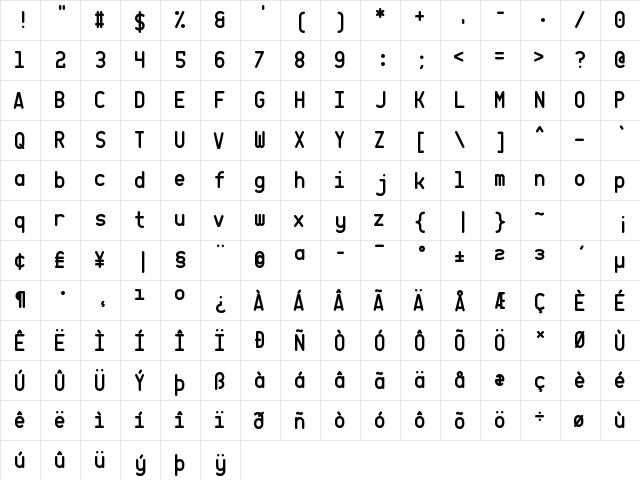
CQ Mono Regular
| Designer | AM |
Design Context for CQ Mono Typeface
CQ Mono uses fixed-width spacing throughout, giving it the structured, systematic character associated with coding environments and technical documentation.
A natural fit for code editors, technical documentation, developer-focused branding, and terminal-inspired UI.
Pro Tip: Pair CQ Mono with a proportional sans for UI contexts where code-style labels and regular body copy need to coexist.